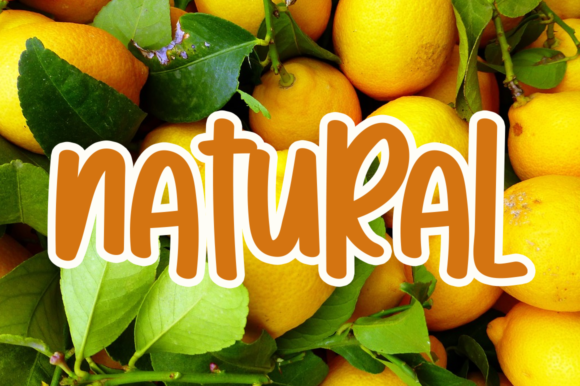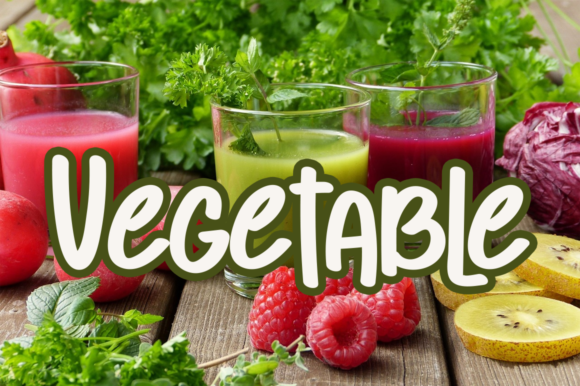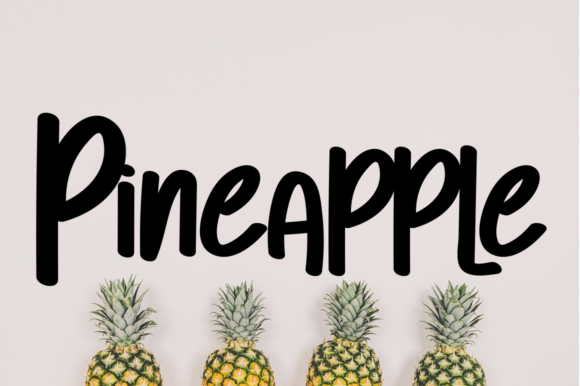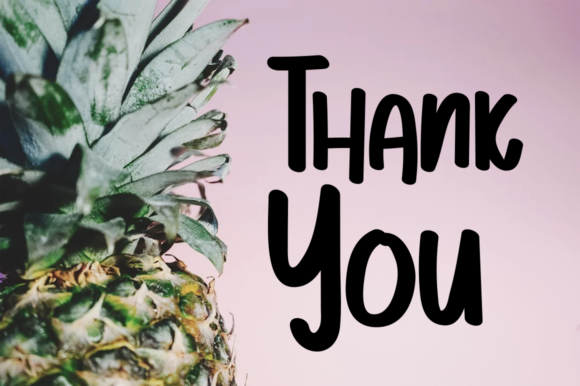
Refreshing Your Designs with California Juice Font
Have you ever been brainstorming ideas for a new project and suddenly a burst of creativity strikes? The fonts you see in your mind’s eye start to take shape, and you can almost taste the excitement. That’s exactly what happened when the California Juice Font was created – a cool, fun, and friendly display font that’s sure to bring your creations to life.
With its simple yet strong visual effect, the California Juice Font is designed to make your work stand out from the crowd. Whether you’re a graphic designer, a digital artist, or a marketing specialist, this font is a valuable tool in your creative arsenal. Its unique style and versatility make it perfect for a wide range of applications, from social media graphics to advertising campaigns.
California Juice Font Key Features
- Font Family: California Juice is a sans-serif font family designed for digital use.
- Size: The font family includes various weights, from Thin to Bold, allowing for flexible typographic styling.
- Resolution: Designed for high-resolution displays, California Juice font is optimized for screens with high pixel densities.
- Unique Characteristics: The font features a modern, friendly feel with subtle rounded edges, making it suitable for various digital applications, including logos, headings, and body text.
California Juice Font Review
I recently had the chance to work with the California Juice Font, and I have to say, it’s a unique and quirky addition to any design project. ✨ The font’s hand-drawn feel and fun, laid-back vibe immediately evoke the carefree spirit of California.
- ✨ The font’s playful, casual feel makes it perfect for designs that need a relaxed, approachable tone.
- ✨ The font’s high x-height makes it easy to read, even at smaller sizes.
- ✨ The font’s versatility makes it suitable for a wide range of design projects, from branding to advertising.
- ⚠️ The font’s quirks and irregularities may not be suitable for more formal or professional designs.
- ⚠️ The font may be difficult to pair with more formal or traditional font styles.
Overall, I think the California Juice Font is a fun and creative addition to any design project. While it may not be the best choice for every design, it’s definitely worth considering for projects that need a playful, laid-back vibe.
Tips: Use California Juice Font for titles and headings to add a touch of California-inspired charm to your design. Experiment with different font sizes and colors to create visual interest.
Tips: Use California Juice Font for creative projects, such as typography-based art or illustrations. Experiment with bold font sizes and bright colors to add visual impact.
Tips: Use California Juice Font for presentations and documents that require a fun and casual tone. Experiment with different font sizes and colors to add visual interest.
California Juice Font is perfect for:
- Summer-themed designs and projects
- California-inspired branding and marketing materials
- Fun and casual typography-based art